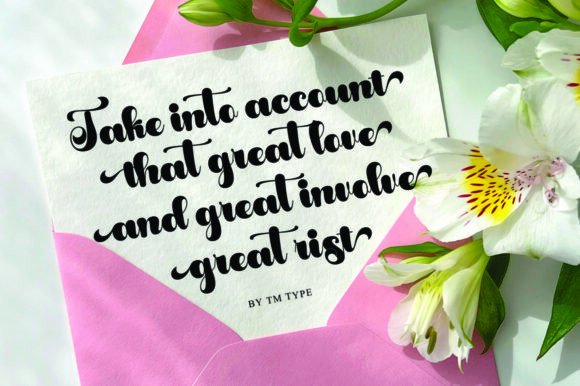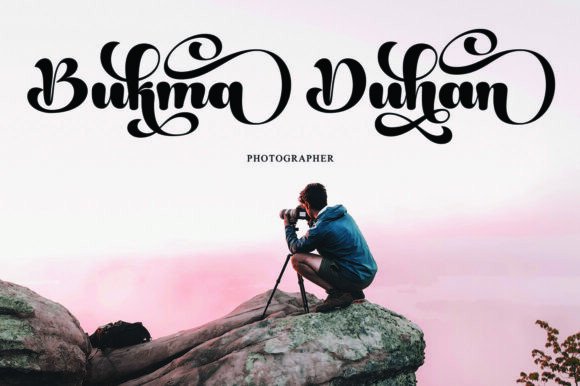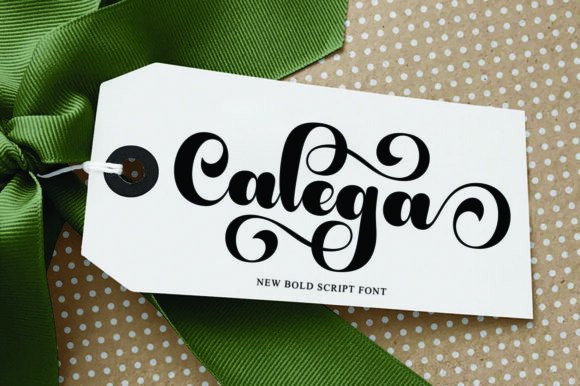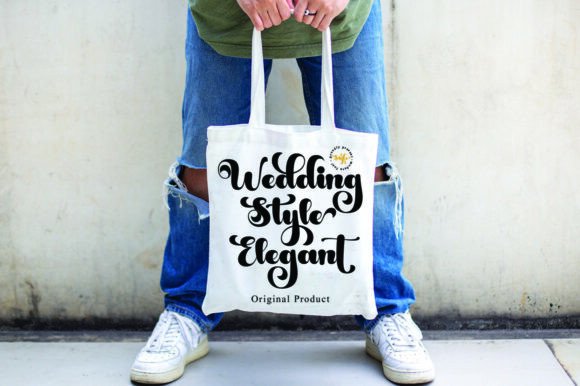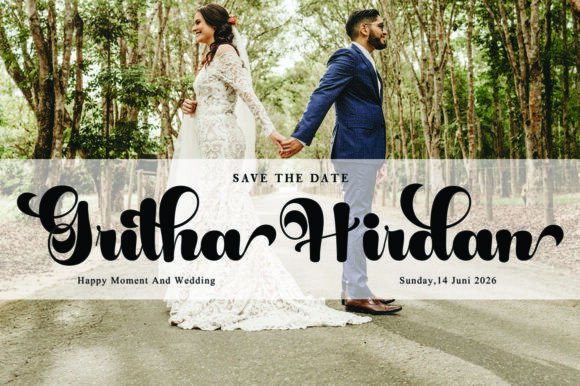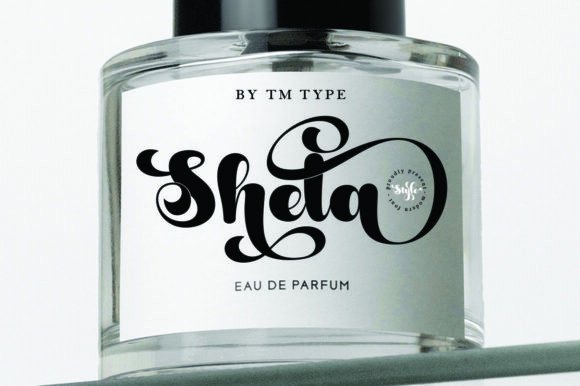
The Elegance of Beghan Font: A Designer’s Delight
I’ll never forget the time I was working on a wedding invitation project, and my client asked for a font that was “soft, elegant, and feminine.” I scoured the internet, tried out countless fonts, but nothing seemed to fit the bill. That was until I stumbled upon Beghan Font. With its graceful strokes and delicate touch, it was love at first sight! In this article, I’ll share my experience with Beghan Font, its features, and how to make the most of it in your design projects.
A Personal Review of Beghan Font
- ✨ Soft and elegant appearance that adds a touch of sophistication to any design
- ✅ Highly versatile, suitable for branding, titles, wedding designs, invitations, signs, logos, labels, and more
- 💫 Beautifully crafted with attention to detail, making it perfect for high-end designs
- 🎨 Works well with a variety of design elements, from simple to intricate
- 🤔 May not be the best choice for body text or long paragraphs, as it’s designed for headlines and titles
- ⚠️ Some users may find the font a bit too delicate for certain design projects, such as bold or edgy themes
- Experiment with OpenType features, such as glyphs and stylistic alternates, to add more personality to your design
The Backstory of Beghan Font
Beghan Font was designed by a team of skilled typographers who aimed to create a font that exudes softness and elegance. Inspired by traditional calligraphy and handwriting, Beghan Font is a beautiful example of modern typography. The font’s creator wanted to design a font that would be perfect for designs that require a touch of sophistication and femininity.
| Font Name | Beghan Font |
| Author | TM Type |
| What is Beghan Font best used for? | Beghan Font is best used for designs that require a soft, elegant, and feminine touch, such as wedding designs, invitations, branding, and titles. |
| Is Beghan Font suitable for body text? | No, Beghan Font is designed for headlines and titles, and may not be the best choice for body text or long paragraphs. |
| Is Beghan Font available in different styles or weights? | Yes, Beghan Font comes in different styles and weights, making it versatile and suitable for a variety of design projects. |